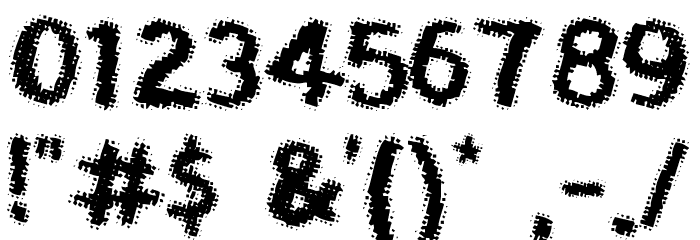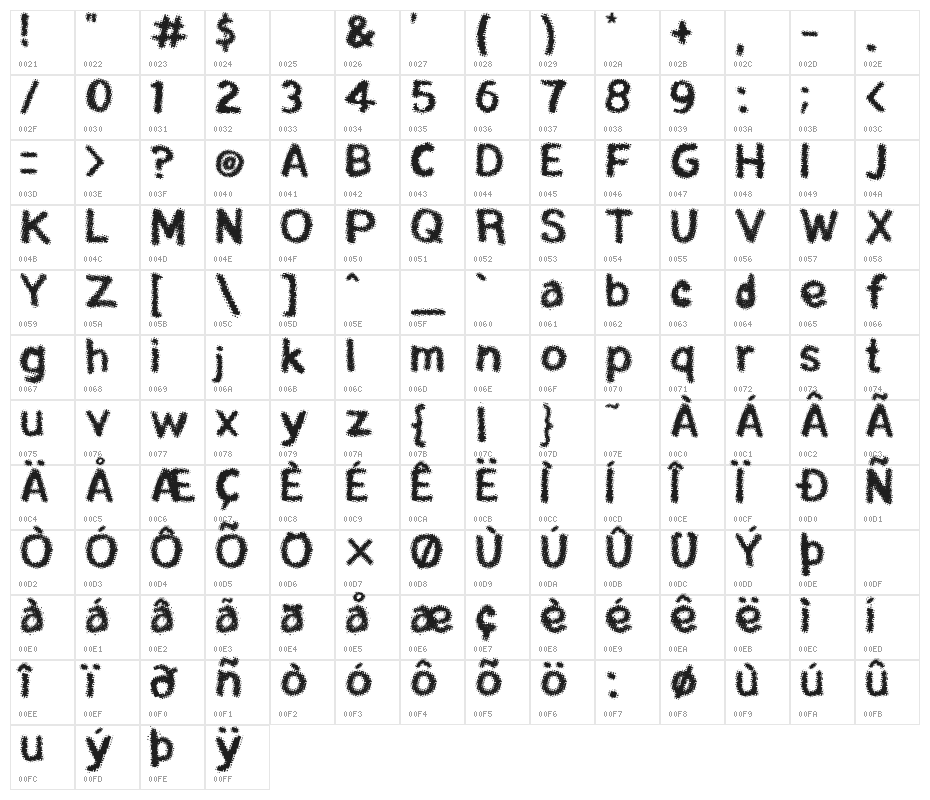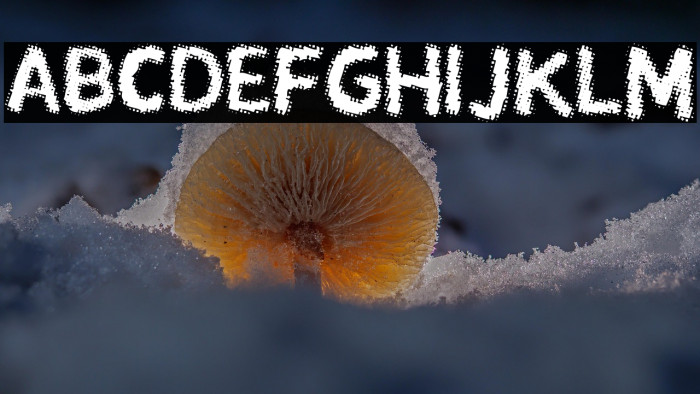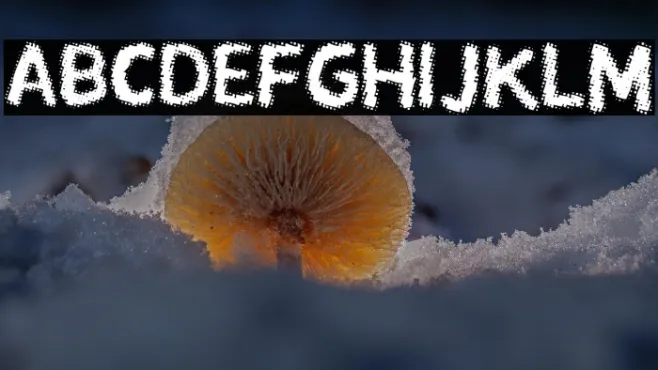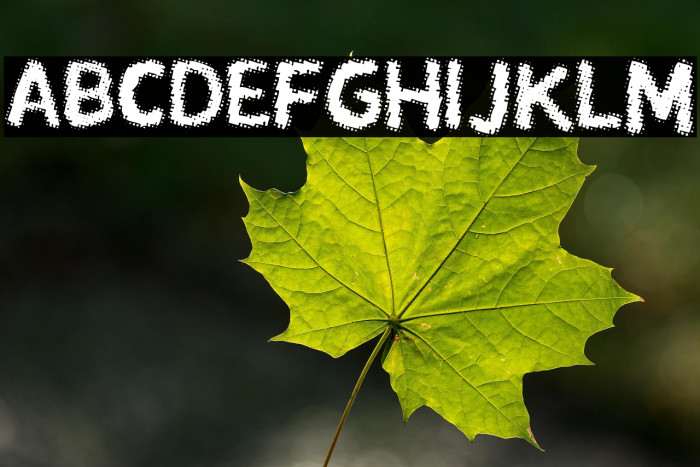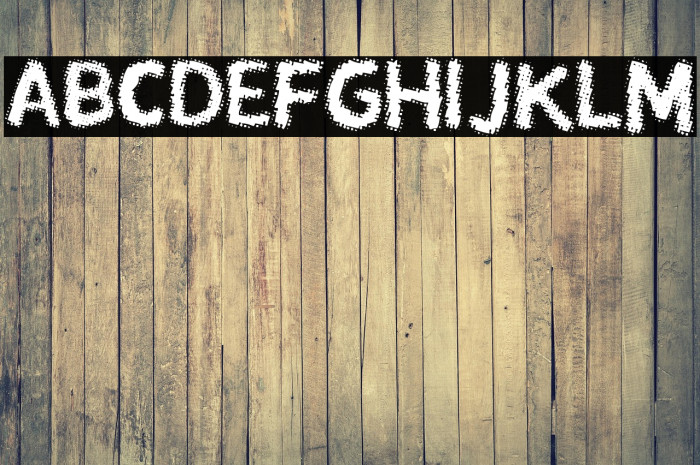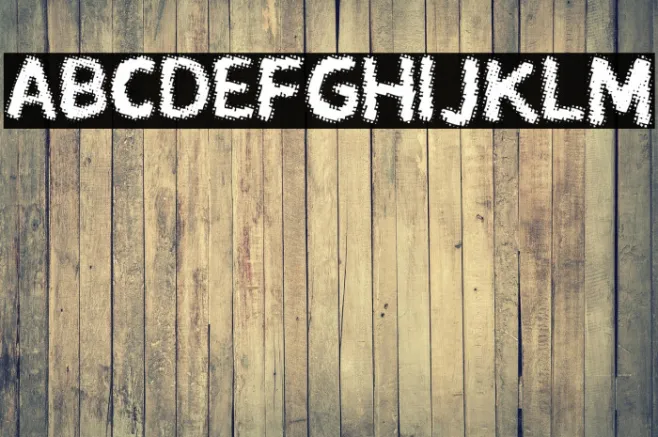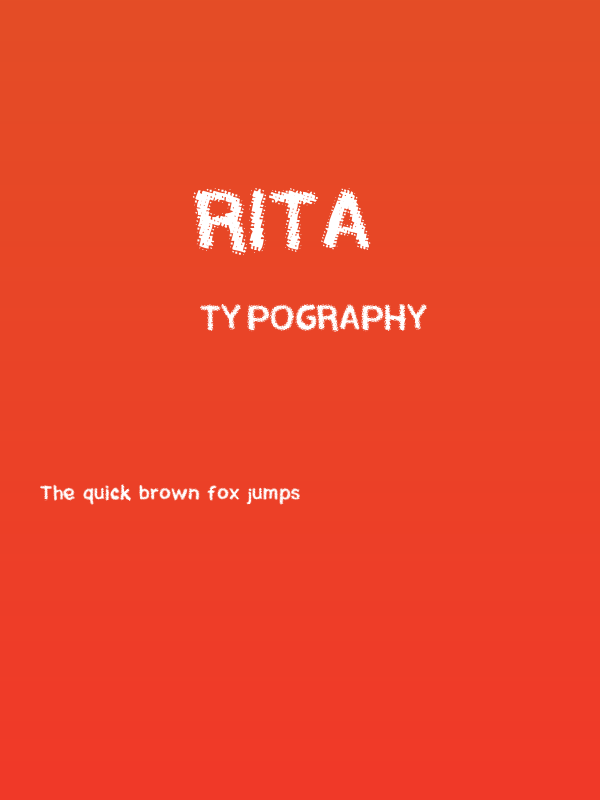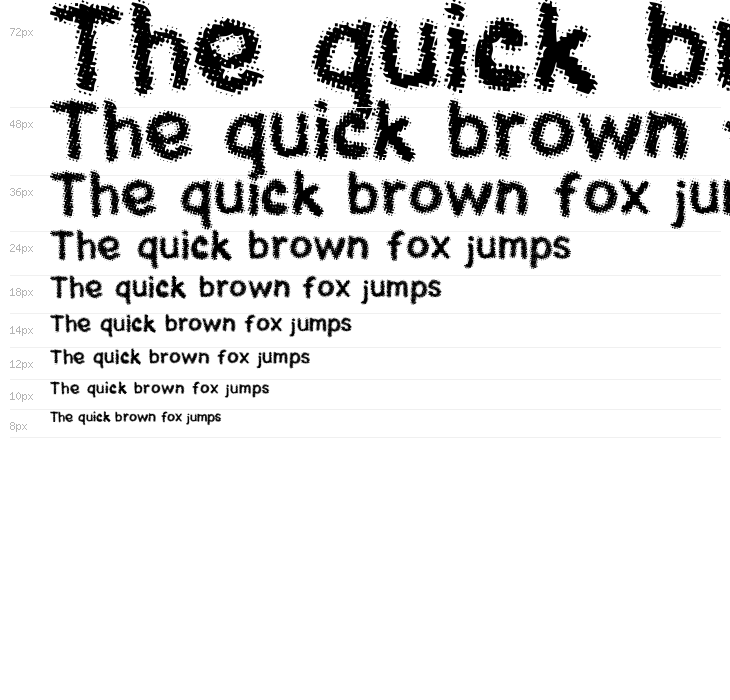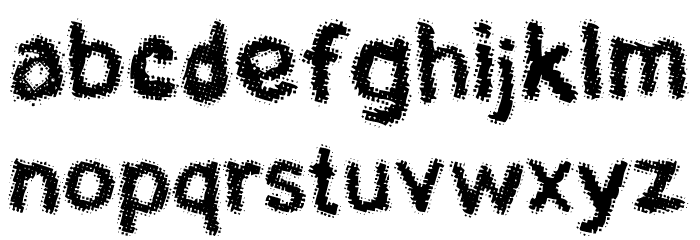
rita Font
rita Description
This font features a bold, textured style with a unique stippled effect that gives it a dynamic and energetic appearance. The characters are slightly rounded, adding a friendly and approachable feel. The uppercase and lowercase letters maintain consistent proportions, ensuring readability while the numbers and special characters complement the overall design. The stippling effect creates a sense of movement and depth, making it ideal for eye-catching designs. This font's playful yet bold nature makes it suitable for creative projects that require a touch of personality.